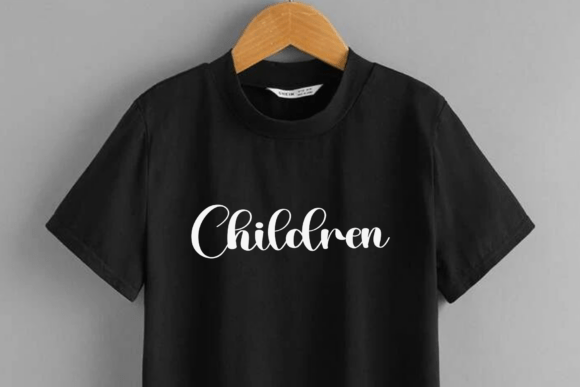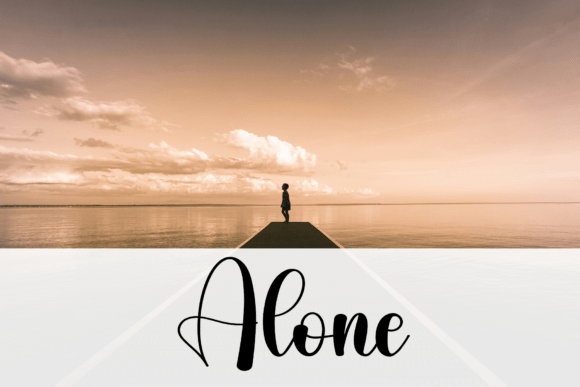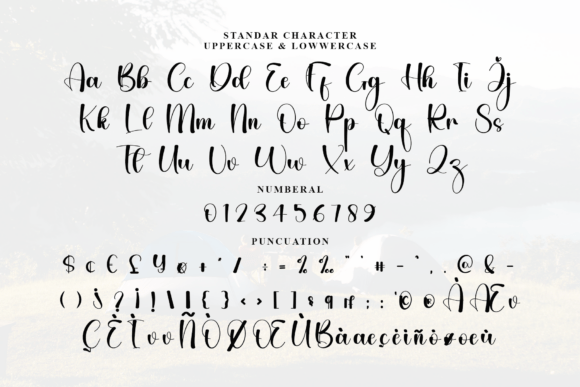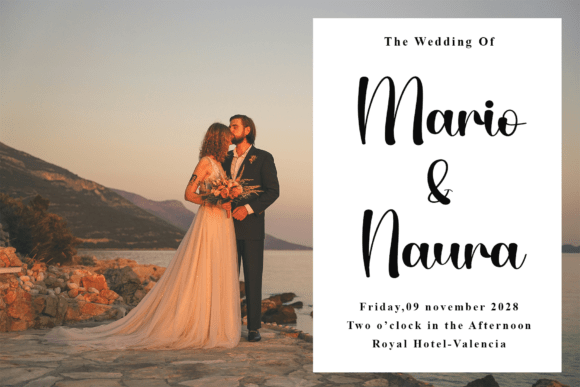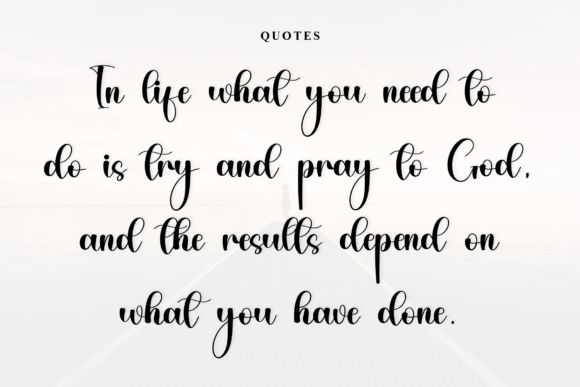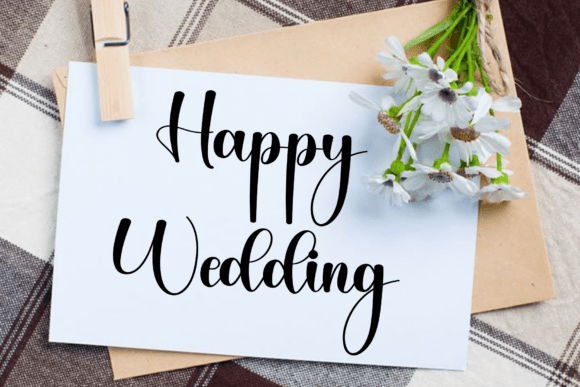
The Perfect Campsite for Your Design: Exploring the Elegance of Camping Font
I’ll never forget the time I was working on a wedding invitation project for a close friend. The design was almost complete, but something was missing – the perfect font to give it that personal, handwritten touch. That’s when I stumbled upon Camping Font, a stylish and incredibly elegant script font that instantly elevated the entire design. In this article, I’ll share my experience with Camping Font, its features, and how to make the most of it in your designs.
An Honest Review of Camping Font
Camping Font has become a staple in my design toolkit, and for good reason. Here are some things I love about it:
- ✨ Elegant and sophisticated: Camping Font adds a touch of luxury to any design, making it perfect for wedding invitations, thank you cards, and other special occasions.
- ✅ Highly versatile: This font works beautifully on a variety of design materials, from logos and business cards to quotes and greeting cards.
- 💫 Handwritten charm: The font’s script style gives it a personal, handwritten feel that’s hard to achieve with digital fonts.
While Camping Font is an excellent choice, it’s not without its quirks:
- ⚠️ Limited use in body text: Due to its script nature, Camping Font can be challenging to read in large blocks of text. It’s best used for headings, titles, or short paragraphs.
- 🤔 Occasional kerning issues: As with any font, some kerning adjustments might be necessary to ensure optimal spacing between letters.
The Story Behind Camping Font
Camping Font was designed with the intention of capturing the essence of handwritten elegance. Its creator drew inspiration from classic script fonts, infusing them with a modern twist to create a unique and versatile typeface. The result is a font that’s both sophisticated and approachable, making it perfect for a wide range of design applications.
| Font Name | Camping Font |
| Author | Black line |
| What is Camping Font best used for? | Camping Font is ideal for designs that require a handwritten, elegant touch, such as wedding invitations, thank you cards, and luxury branding. |
| Can I use Camping Font for body text? | While Camping Font can be used for short paragraphs, it’s not recommended for large blocks of body text due to its script nature and potential readability issues. |
| Is Camping Font suitable for digital designs? | Yes, Camping Font can be used in digital designs, such as social media graphics, email templates, and website headers, as long as it’s used in a way that takes advantage of its elegant, handwritten charm. |